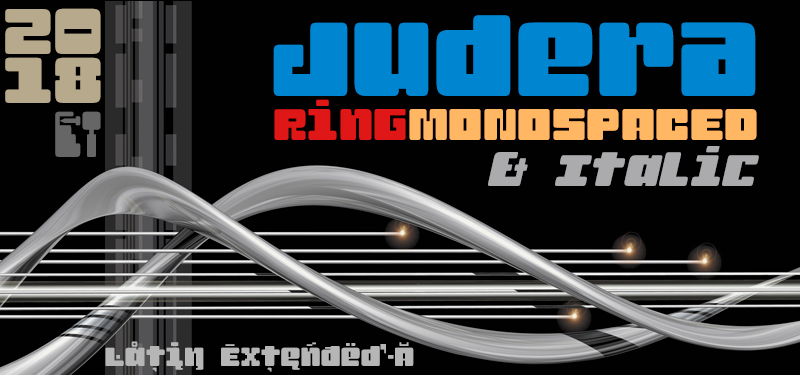
Judera Ring
Judera Ring Font
Judera Ring is an unicase and monospaced experimental typography of subtractive geometric construction with no diagonals.
Rounded in its external vertices with angles proportional to the constructive grid.